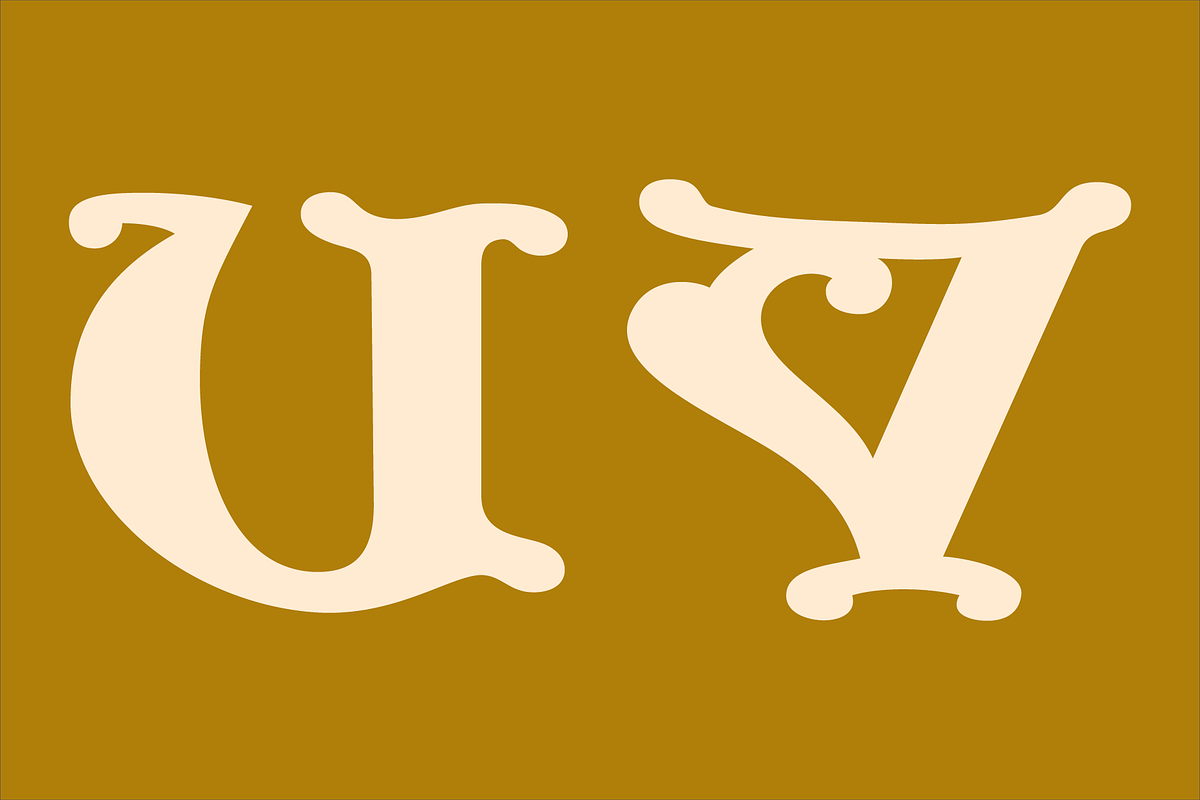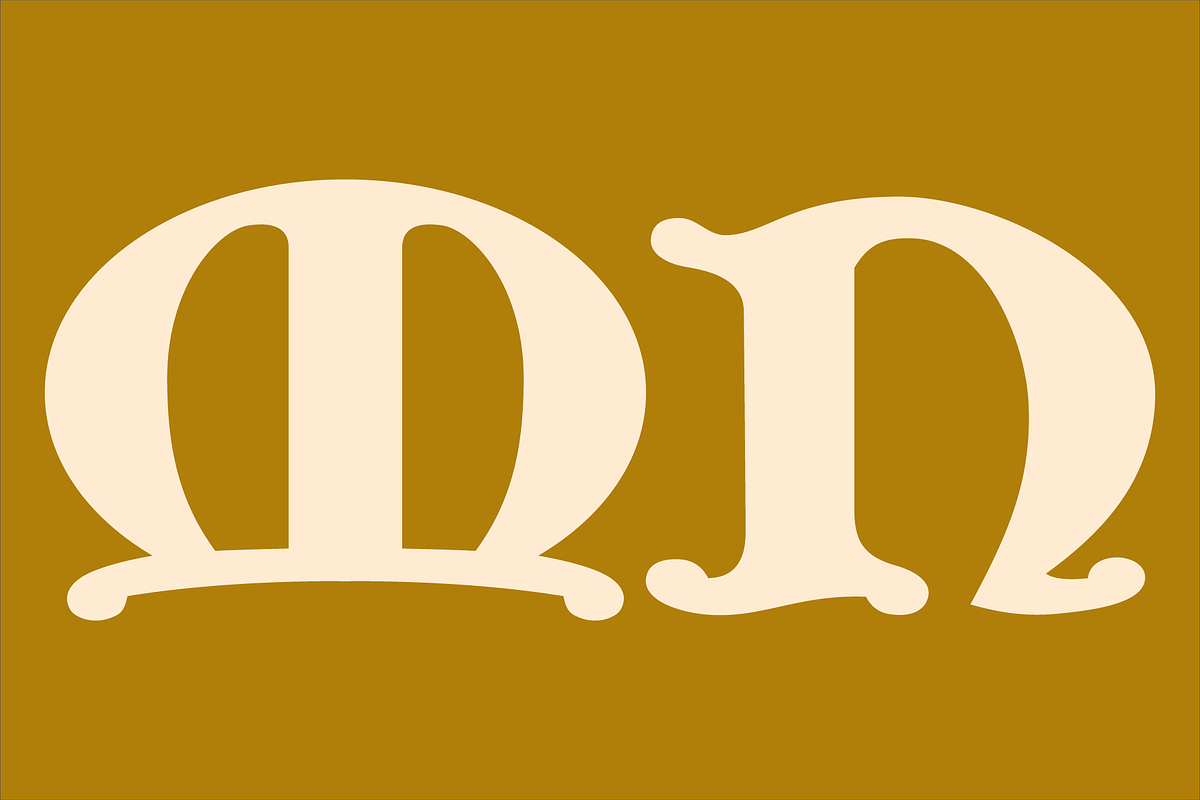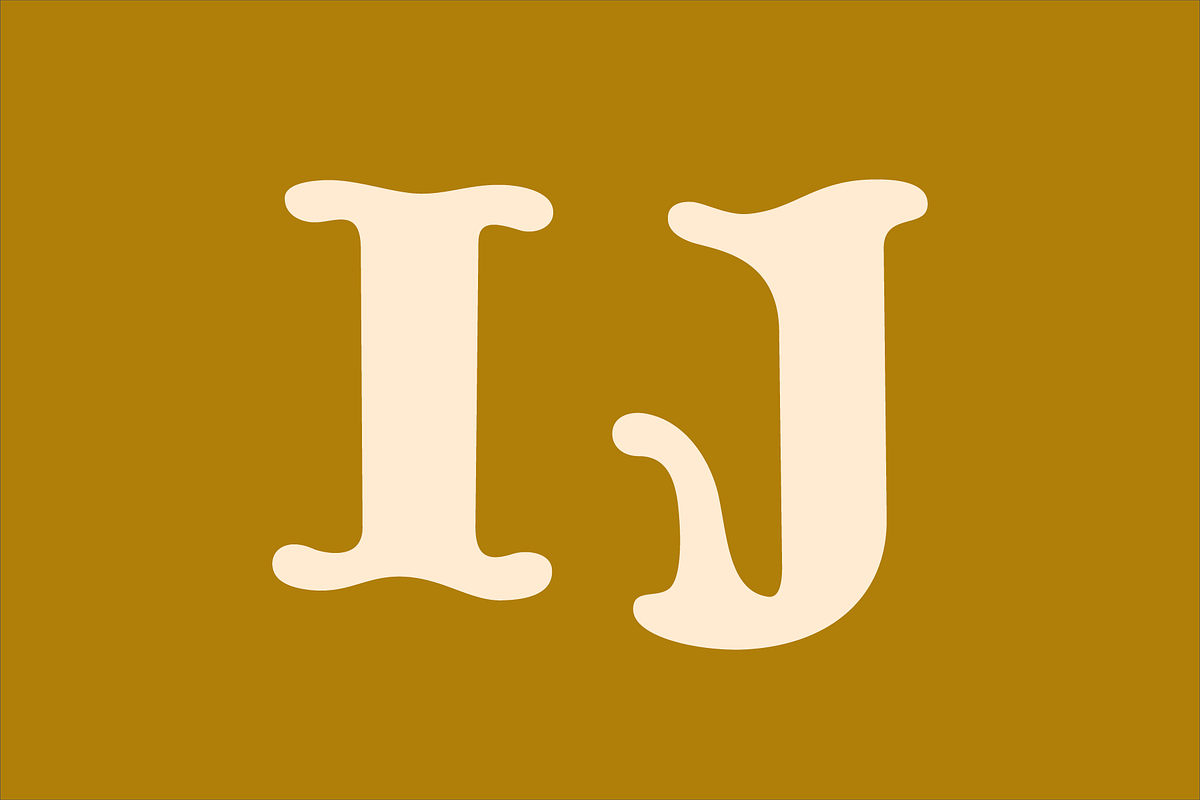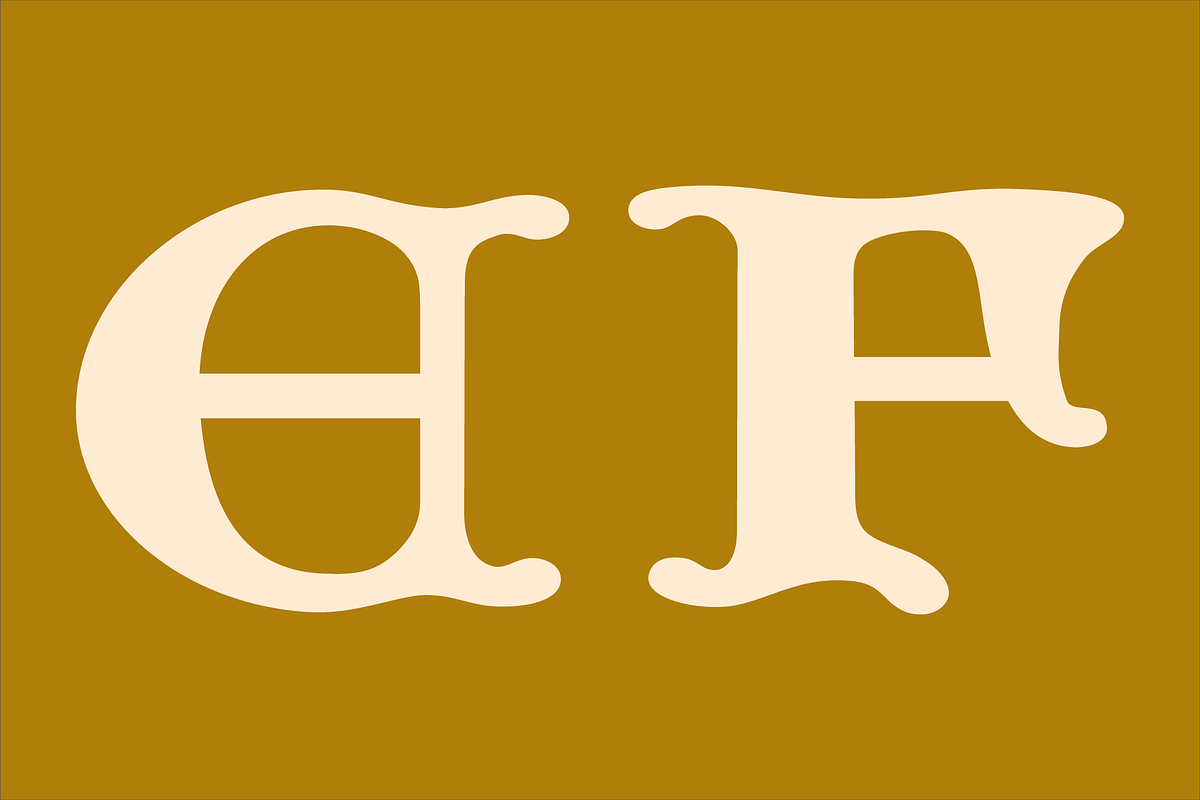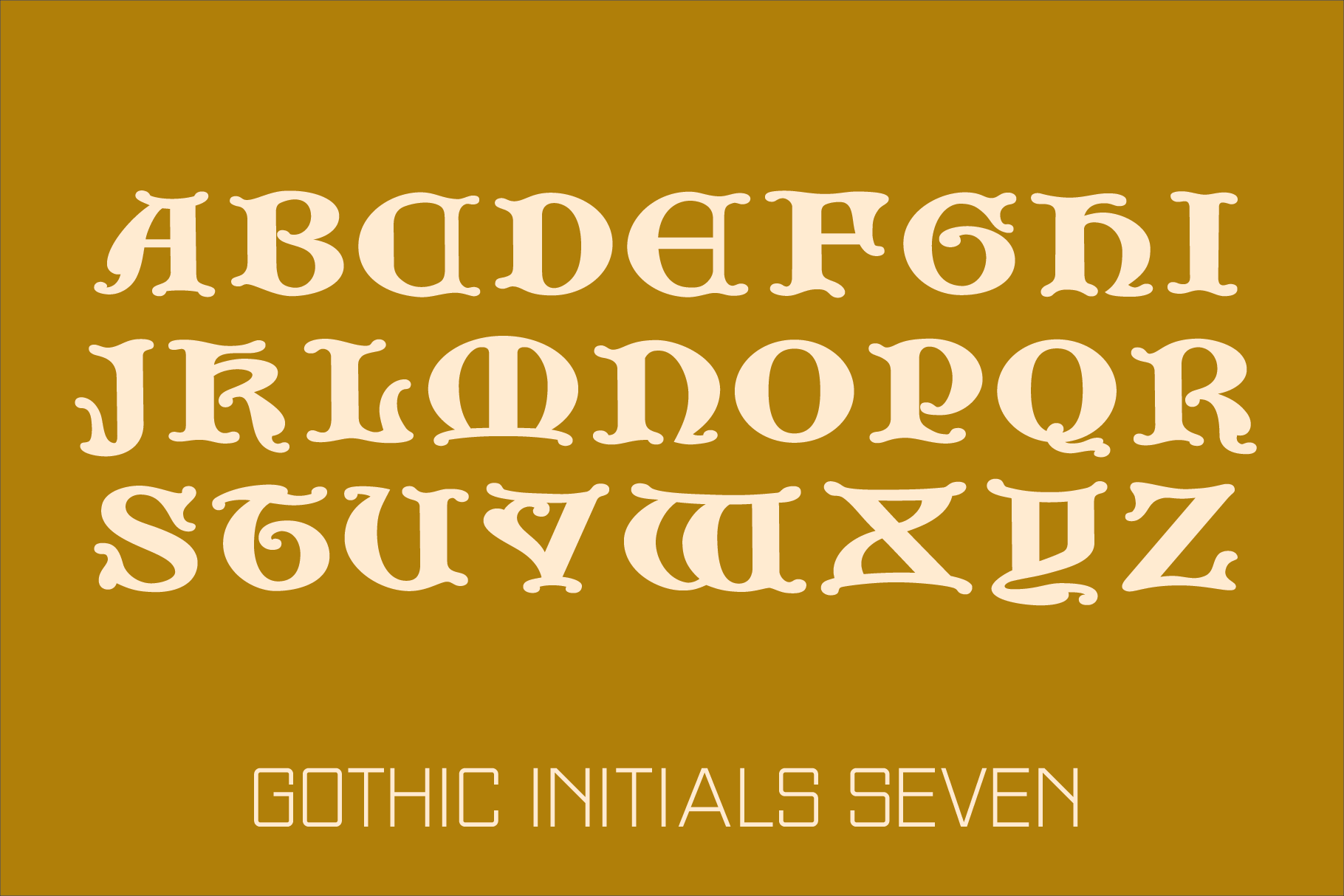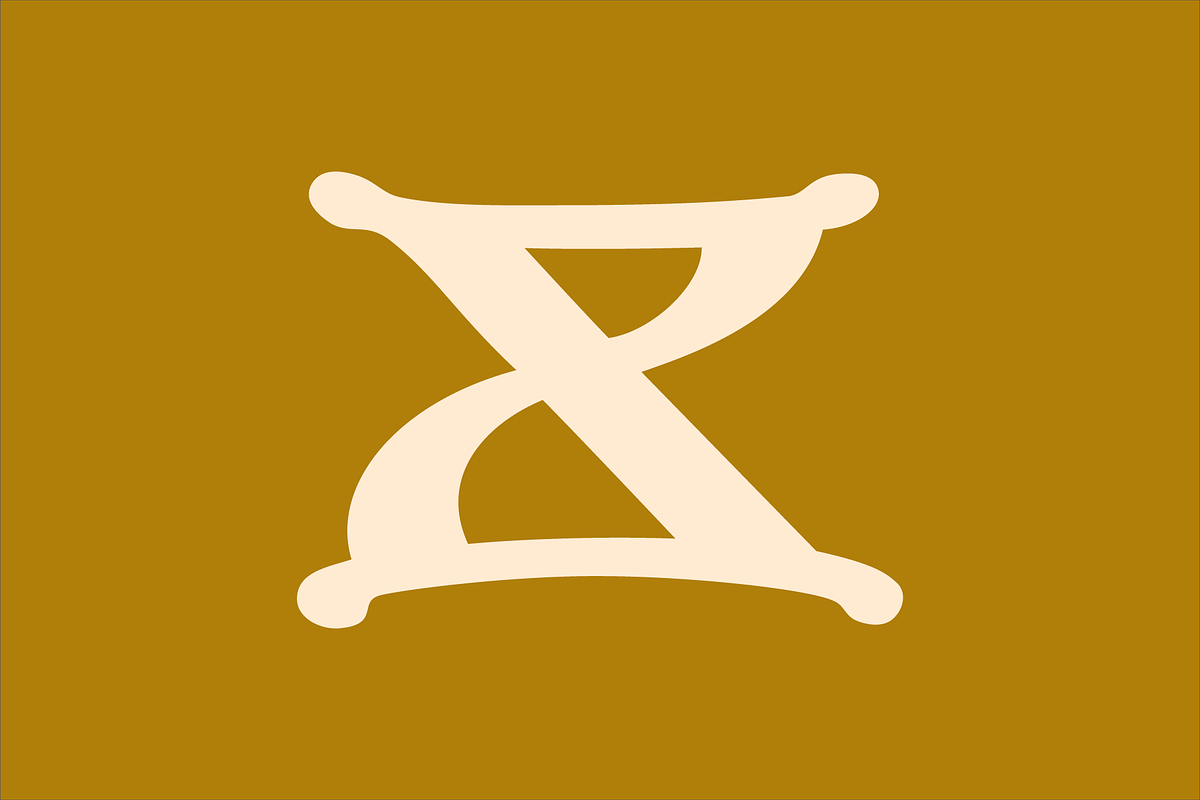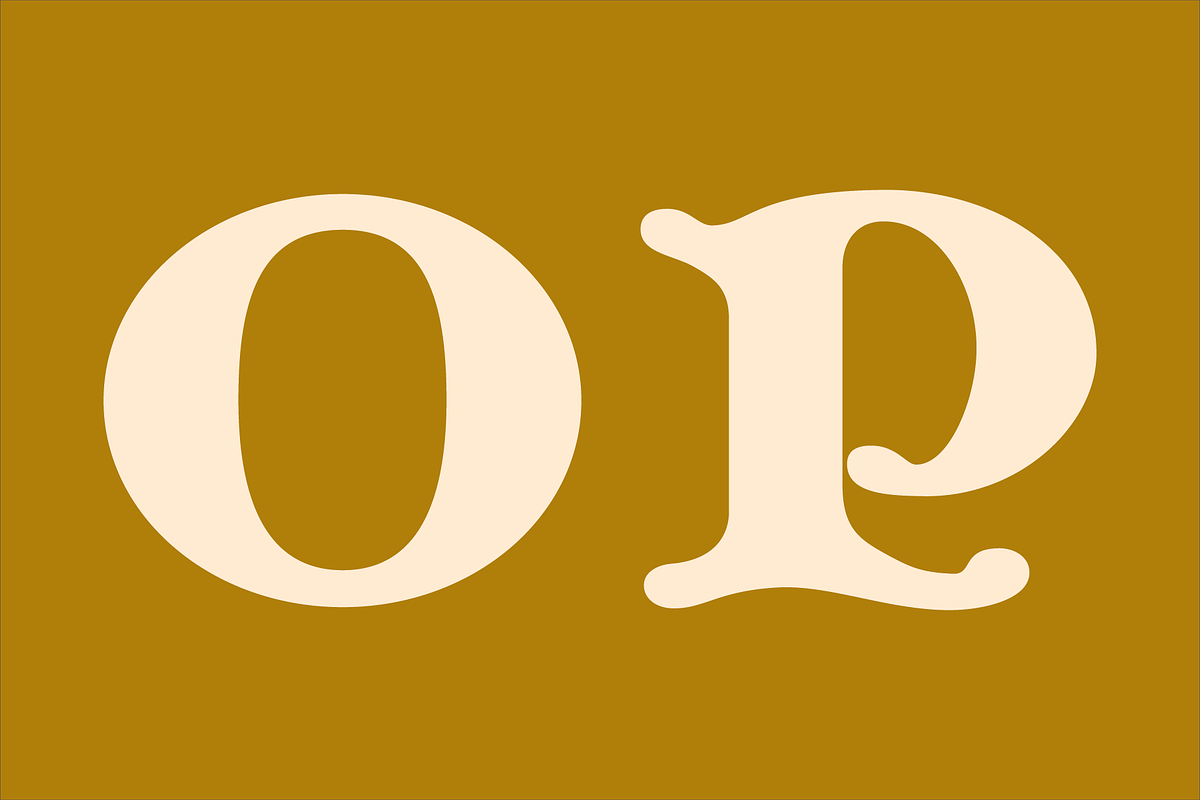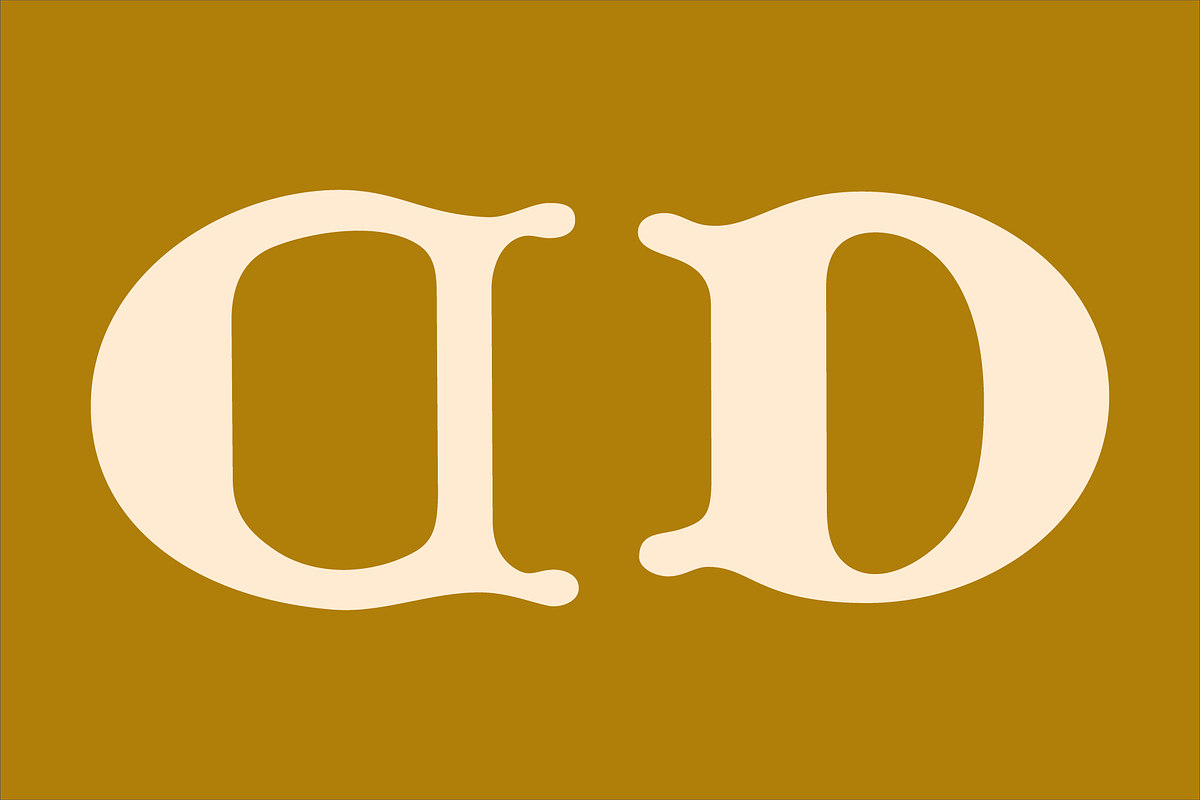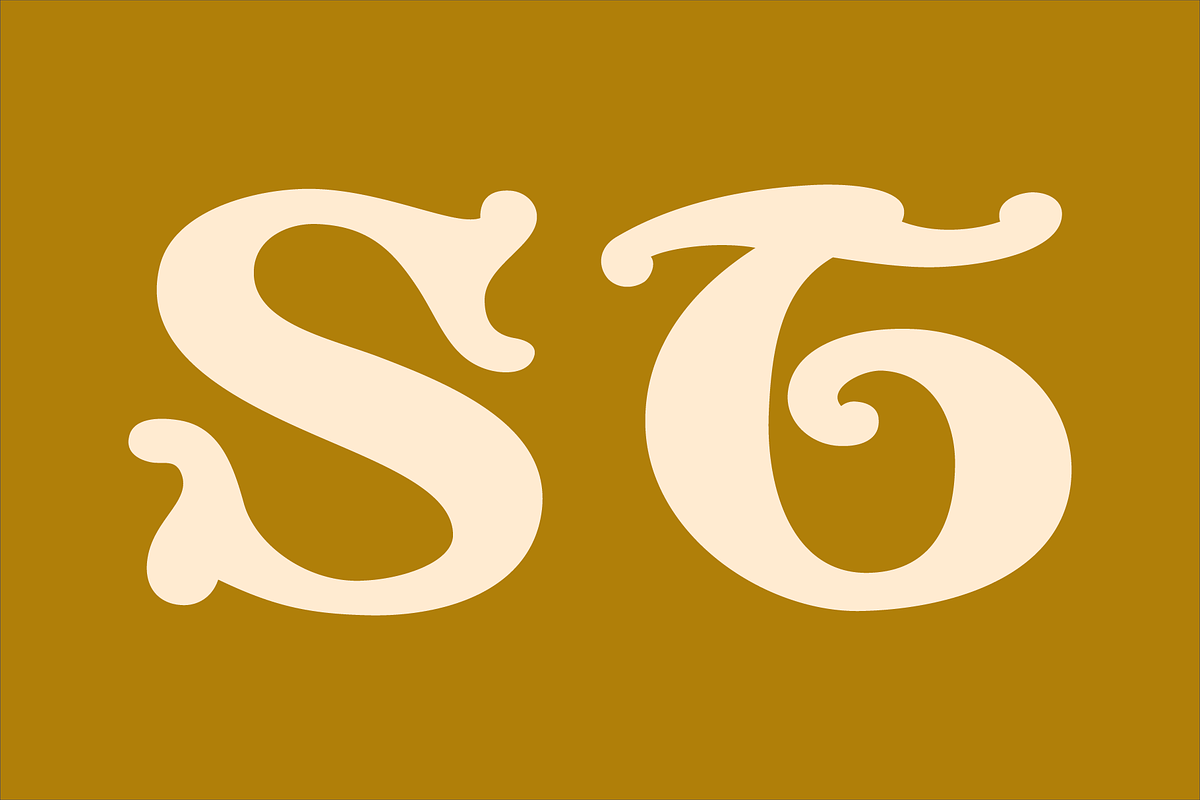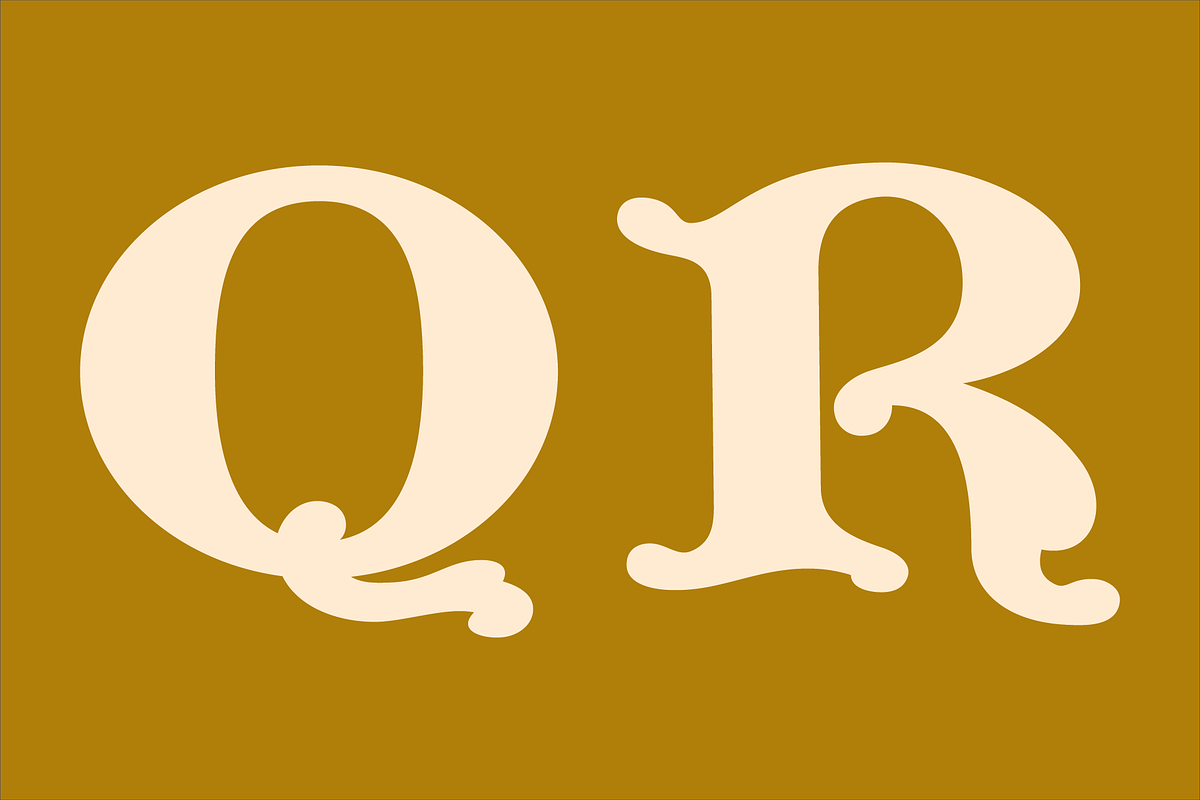
Gothic Initials Seven Font
The Gothic Initials Seven was inspired by the beautifully-written gothic scripts of medieval scribes. The font contains the uppercase letters A through Z located under both the character set and shift+character set keys. The font is intended for use as initials, monograms, drop caps or wherever fancy letters are desirable.